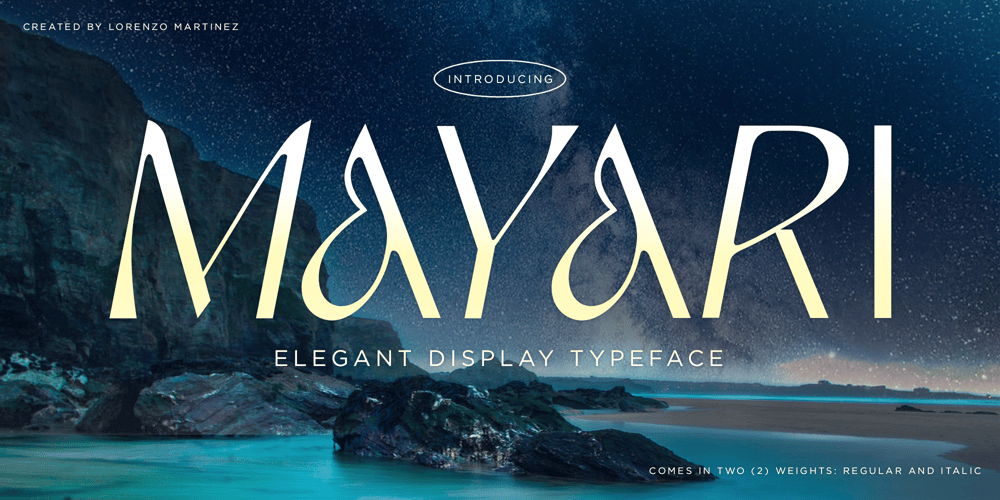
Mayari Font Family was designed by Lorenzo Gabriel Martinez and published by Lurinzu Studios. Mayari contains 2 styles and family package options. “Mayari” is an elegant and expressive display typeface that is inspired by the characteristic and vibes of female warrior in Filipino Mythology named: Mayari. Mayari is the “goddess of moon”. This typeface holds the perfect balance of expressiveness as a display whilst also holds well of being a body type. This typeface is best used when you want to express elegance, class and sophistication in your designs. *This font includes letters, numbers, multi-language, and all essential marks needed.* Two(2) weights are currently available for this typeface: Regular and Italic